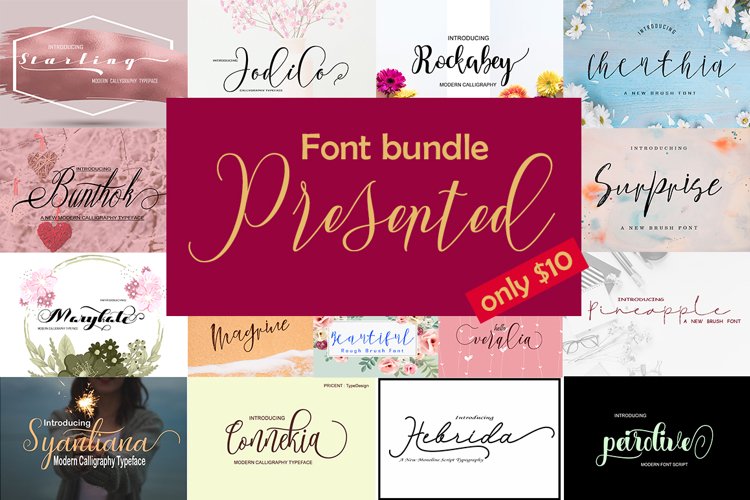
FONT BUNDLE PRESENTED
Chenthia
Yulitta
Hollyhock
Bunthok
Surprise
Pineapple
Rockabey
Syantiana
Hebrida
Jodilo
Marykate
Connekia
Starling
Himahoney
FONT BUNDLE PRESENTED
This package contains 12 Font Scripts,brush & font regular. Includes some best-selling fonts. Jodilo Script, Surprise Script, Bunthok Script, Marykate Script, Starling Script, Pineapple Dll Script & regular, with hundreds of glyphs, including alternates, ligatures, swashes, contextual alternatives and international language support. It can be accessed by using OpenType smart programs like Adobe Illustrator, Adobe InDesign, CorelDraw X6-X7, Microsoft Word.